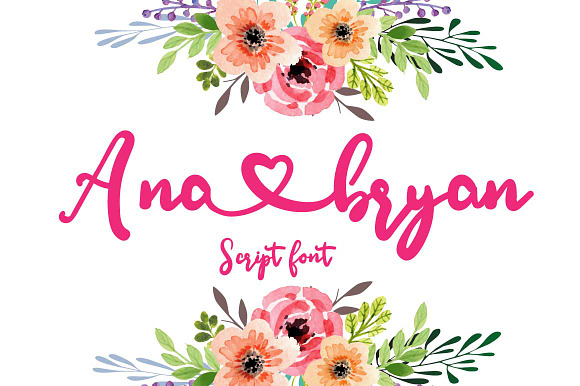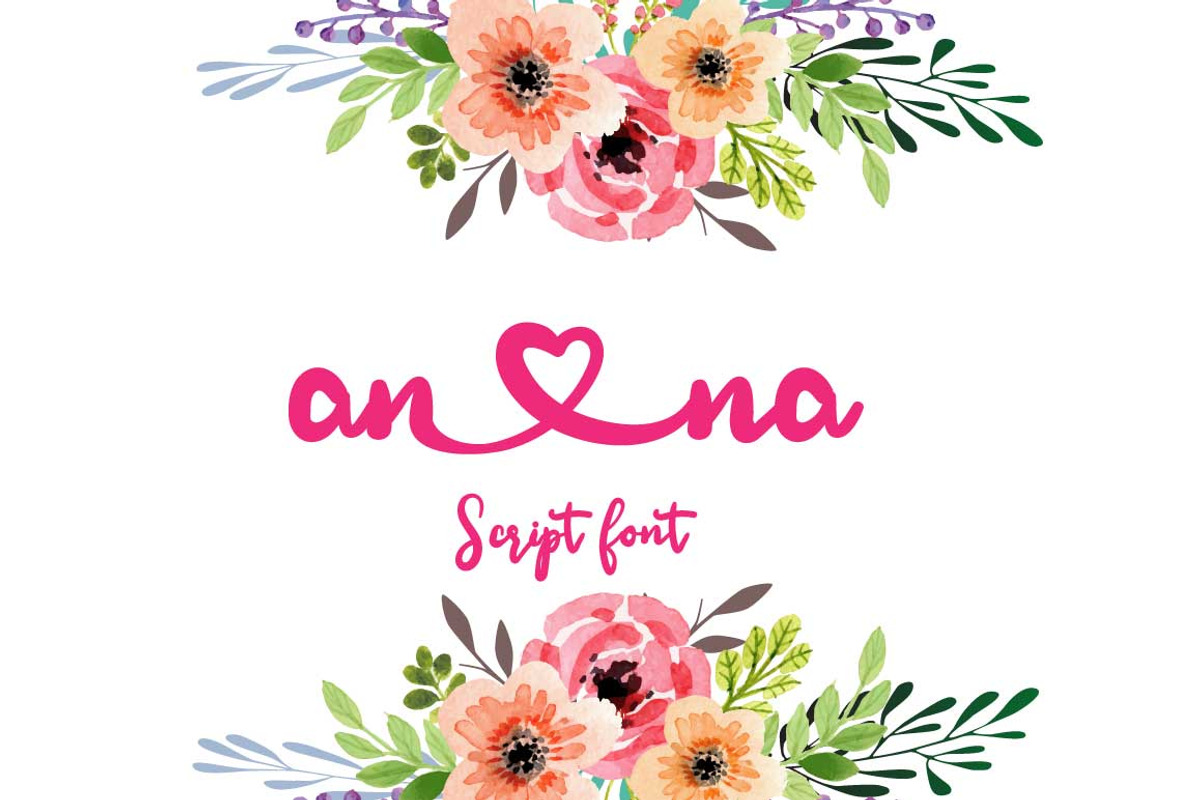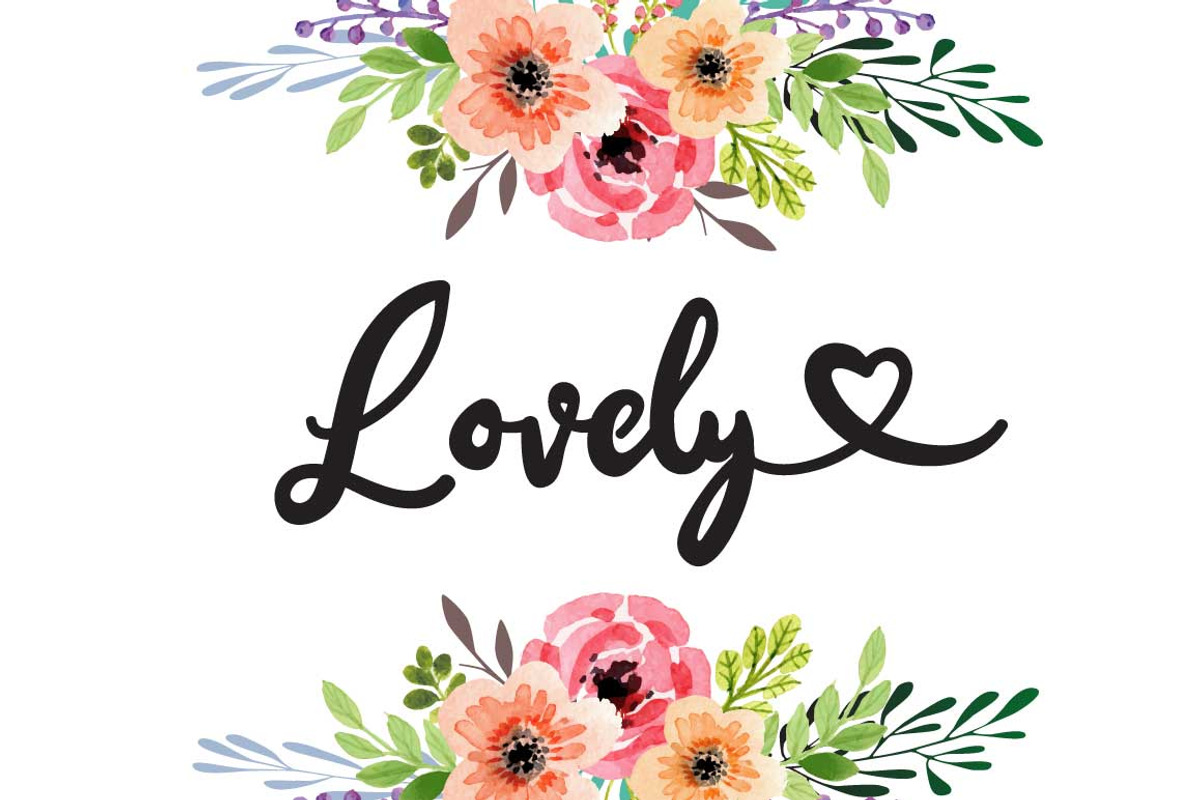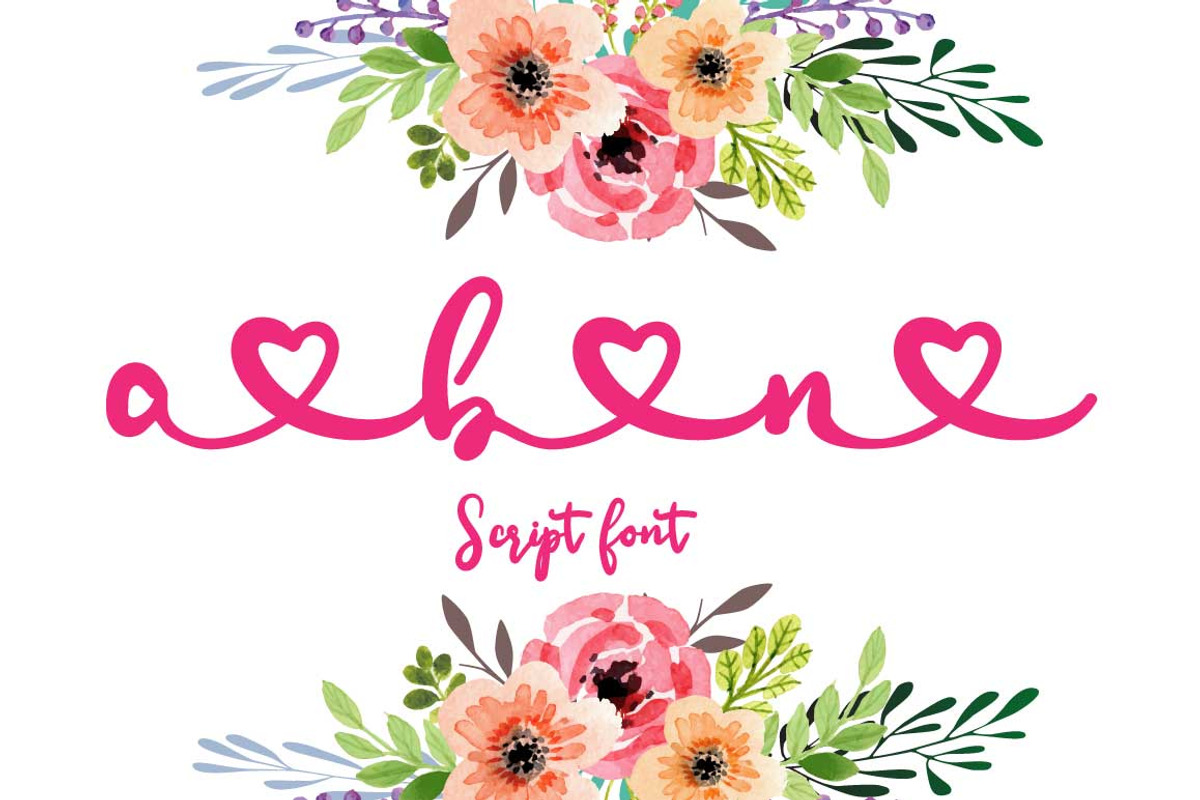
Ana Bryan | Cute Heart Script Font
Ana Bryan | Cute heart Script Font is a decorative script font that can be used in myriad places. Typeface has been carefully crafted to make your text look beautiful. With modern style this font is perfect for many different project ex: quotes, blog header, poster, wedding, branding, logo, fashion, apparel, letter, invitation, stationery, etc. FEATURES:Ana Bryan (OTF) Thanks for looking.
Ana Bryan | Cute Heart Script Font by Zmapist fits naturally into Branding, posters, packaging, typography.